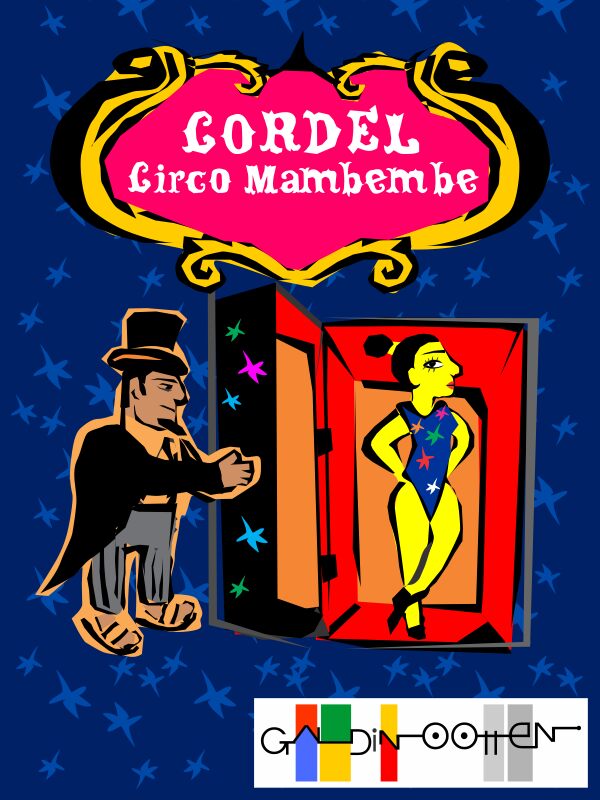
Cordel Circo Mambembe Outline Bold by Galdino Otten is a free outlined Western display font inspired by vintage circus bills. Its broad, dark letters carry layered borders and sharply forked serifs. Rounded interiors keep the ornate forms lively rather than severe.
The looping outlines and pointed ornaments echo carnival illustrations, suiting event posters and fairground signage. It also suits music merchandise and playful food packaging. On magazine covers, the lettering can become part of an illustrated masthead, extending its decorative linework into the artwork.